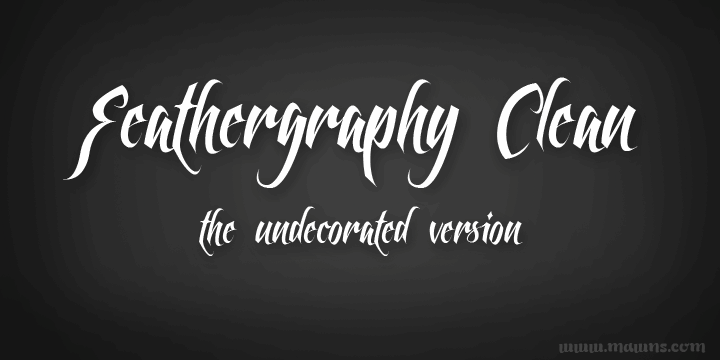
Free Feathergraphy Clean Font
Download and enjoy this free feathergraphy clean font. Cool typeface to showcase your designs in a modern way. This free font file was found from the amazing source called Font Space. Amaze your fellow designers and create stunning designs with this beautiful font.